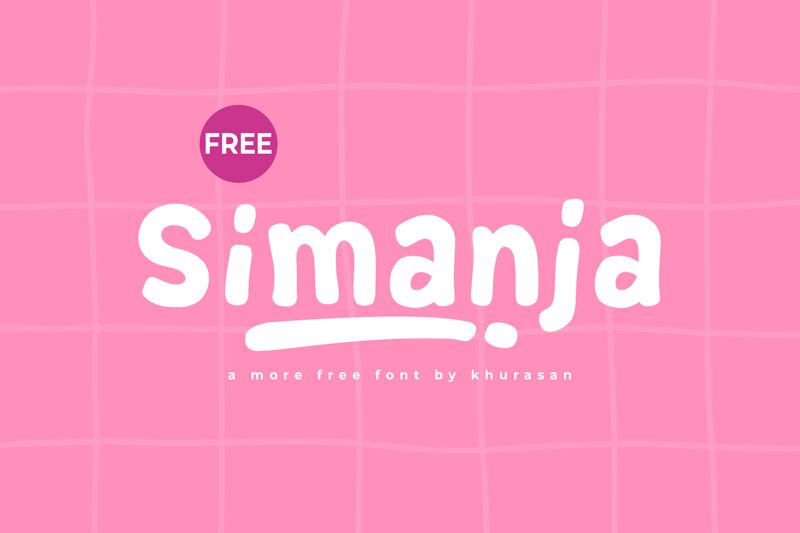
Simanja
Simanja font is a cartoon style display typeface designed by Khurasan. The free font has been created in a catchy 3D style making its every letter the center of attention. However, playful letters are also interesting on their won with different forms and appearances making them feel fun and celebratory even in normal instances.
Use Simanja for exceptional use cases in apps, posters, movie posters, games titles, YouTube Covers, thumbnails, and everyday logos. Like most display fonts it does fall short when used for body text or medium to large-sized text blocks.